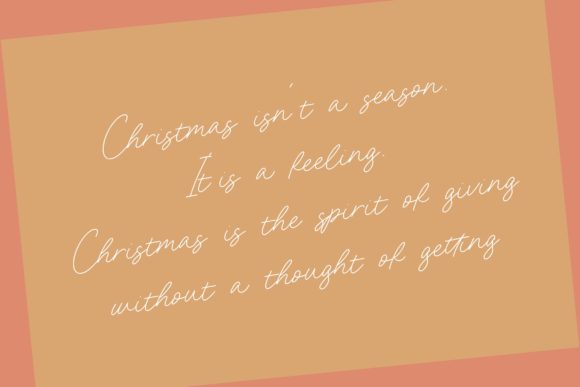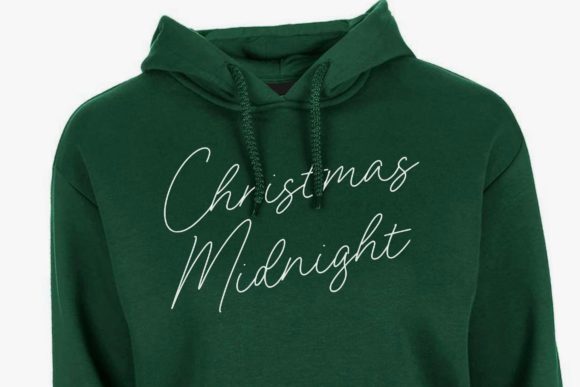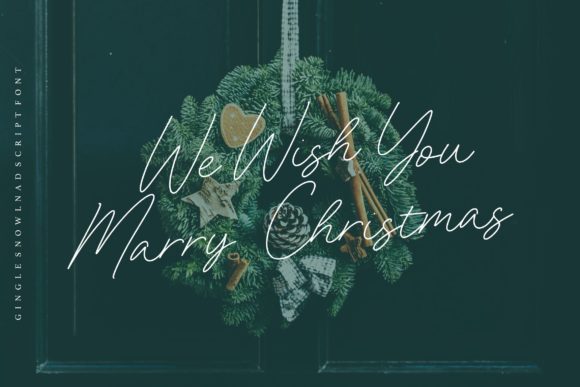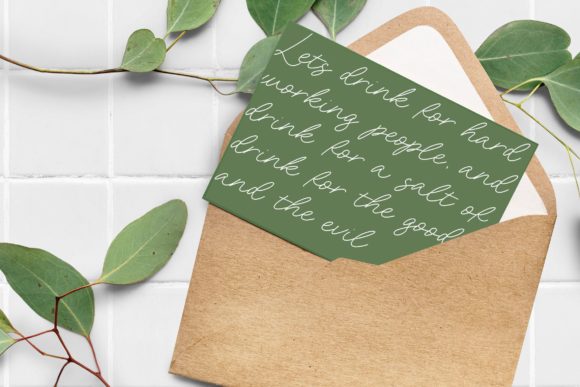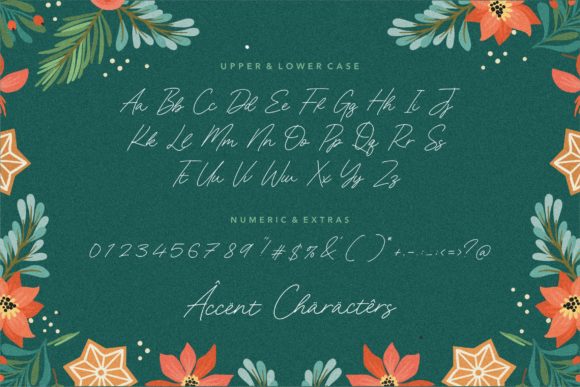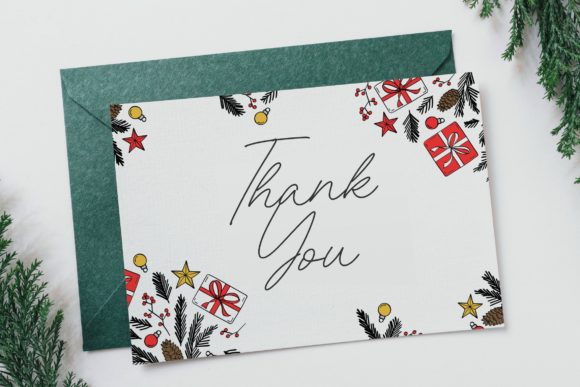
Gingle Snowland Font: Elevate Your Designs with a Touch of Elegance
In the world of typography, a font can make or break a design. For designers and crafters looking to add a touch of sophistication and elegance to their projects, the Gingle Snowland Font is an excellent choice. This gorgeous monoline script font has taken the design community by storm, and for good reason. Its versatility, beauty, and ease of use make it perfect for a wide range of applications, from product packaging and branding projects to magazines, social media, wedding invitations, and more.
What is Gingle Snowland Font?
Gingle Snowland is a stunning monoline script font that exudes elegance and refinement. Its sleek, modern design features smooth lines and curves, making it perfect for designs that require a touch of sophistication. The font’s monoline construction gives it a clean and minimalist look, while its script style adds a touch of whimsy and personality.
Key Features of Gingle Snowland Font
- Monoline Script Font: Gingle Snowland’s monoline construction gives it a sleek and modern look that’s perfect for designs that require a touch of elegance.
- Versatile: This font is perfect for a wide range of applications, from product packaging and branding projects to magazines, social media, wedding invitations, and more.
- Elegant and Refined: Gingle Snowland’s smooth lines and curves give it a sophisticated and refined look that’s sure to elevate your designs.
- Easy to Use: This font is easy to read and works well in both digital and print formats.
Gingle Snowland Font is perfect for designers and crafters looking to add a touch of elegance and sophistication to their projects. Whether you’re working on a branding project, creating product packaging, or designing wedding invitations, this font is sure to impress. Its versatility and ease of use make it a great choice for designers of all skill levels, from beginners to seasoned professionals.
Use Cases for Gingle Snowland Font
- Product Packaging: Add a touch of elegance to your product packaging with Gingle Snowland Font. Its sleek and modern design is perfect for luxury brands and products.
- Branding Projects: Create a sophisticated and refined brand identity with Gingle Snowland Font. Its monoline construction and script style make it perfect for logos, business cards, and more.
- Magazines and Social Media: Use Gingle Snowland Font to add a touch of elegance to your magazine or social media designs. Its easy-to-read design makes it perfect for body text and headlines.
- Wedding Invitations: Make your wedding invitations stand out with Gingle Snowland Font. Its whimsical and elegant design is perfect for formal and informal wedding invitations.
Why Choose Gingle Snowland Font?
With so many fonts available, why choose Gingle Snowland Font? Here are just a few reasons why this font stands out from the rest:
- Unique Design: Gingle Snowland Font features a unique and elegant design that’s sure to elevate your designs.
- Versatile: This font is perfect for a wide range of applications, making it a great addition to any designer’s toolkit.
- Ease of Use: Gingle Snowland Font is easy to read and works well in both digital and print formats.
In conclusion, Gingle Snowland Font is a gorgeous monoline script font that’s perfect for designers and crafters looking to add a touch of elegance and sophistication to their projects. Its versatility, beauty, and ease of use make it a great choice for a wide range of applications, from product packaging and branding projects to magazines, social media, wedding invitations, and more. Whether you’re a seasoned designer or just starting out, Gingle Snowland Font is sure to elevate your designs and help you create stunning visual content.